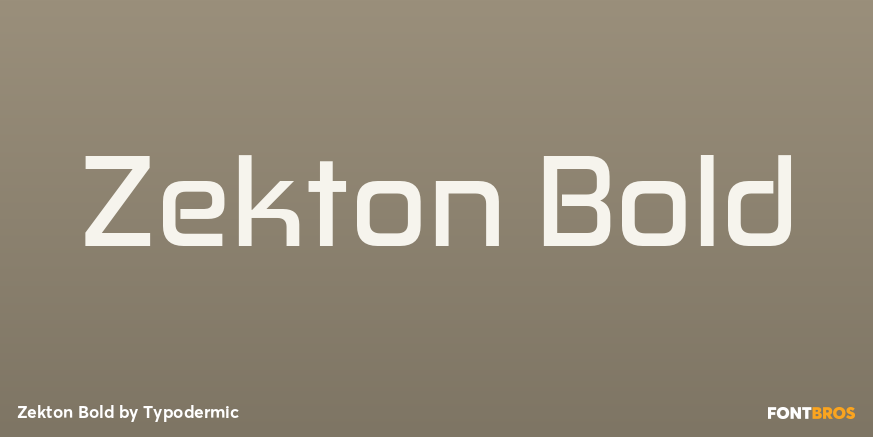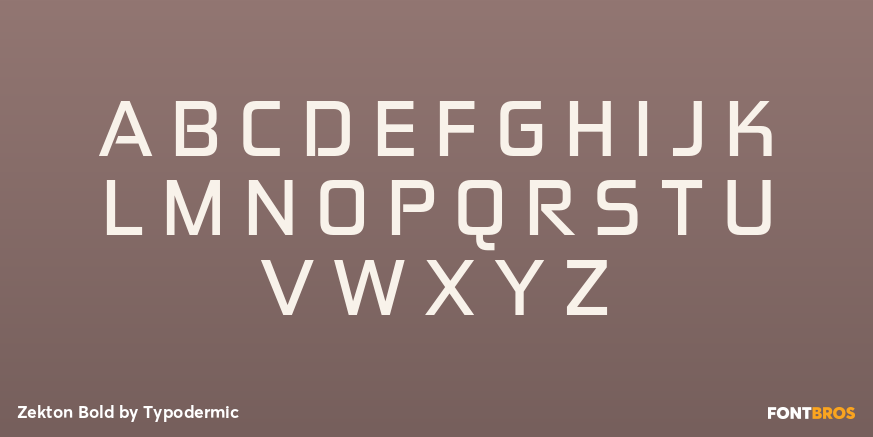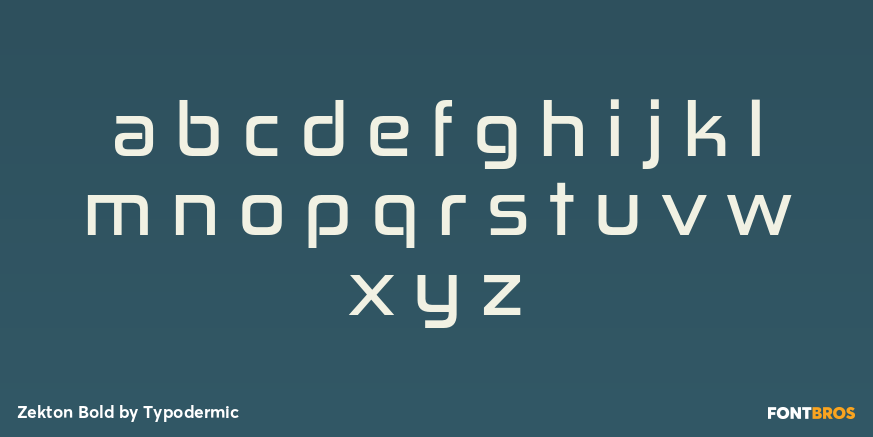
Zekton Bold
A technology company needs more than a futuristic logo. Product families, business divisions, conference stages, equipment markings, launch graphics, recruitment campaigns, and presentation systems all have to feel related long after the original identity has been approved. Zekton gives those systems a recognizable square-sans structure without forcing every application into science-fiction styling.
Its modular construction, squared curves, and technical rhythm establish an engineered character quickly, while the broader family gives designers room to change scale and emphasis without abandoning that voice. The heaviest styles are especially useful when a product name or corporate message has to stand beside large hardware photography, dominate a keynote screen, or occupy a trade-show wall.
Data-centre and network infrastructure are especially strong territory. Server manufacturers, optical-networking companies, cooling-system suppliers, rack-power systems, enterprise storage, and edge-computing hardware all generate layers of naming: platform families, server lines, chassis models, networking products, and technology programmes. Zekton can carry those names across equipment bezels, cartons, keynote graphics, conference booths, launch pages, and partner presentations while a quieter companion face handles dense specifications and documentation.
Industrial automation and telecommunications present the same problem across different kinds of organizations. Factory robots, machine-vision systems, motion controllers, industrial sensors, fibre systems, satellite terminals, radio hardware, and edge gateways may belong to several product families under one corporate identity. Zekton can unify machine names, controller series, platform titles, exhibition graphics, division names, and technology programmes without requiring a new visual trick for every part of the catalogue.
Advanced engineering groups can use the family at a broader organizational level. A company spanning automation, power systems, aerospace components, testing equipment, and materials technology may need one display voice for headquarters signage, annual technology reports, recruitment campaigns, trade fairs, internal innovation programmes, and product launches. Enterprise software in cybersecurity, simulation, infrastructure monitoring, and network management can use the same language selectively for product names, keynote graphics, and major section headings.
Zekton is a square sans for technology companies that need an engineered identity to keep working after the logo. It can move through hardware, product families, corporate divisions, exhibitions, launches, and enterprise software without reducing the whole brand to a single futuristic gesture.